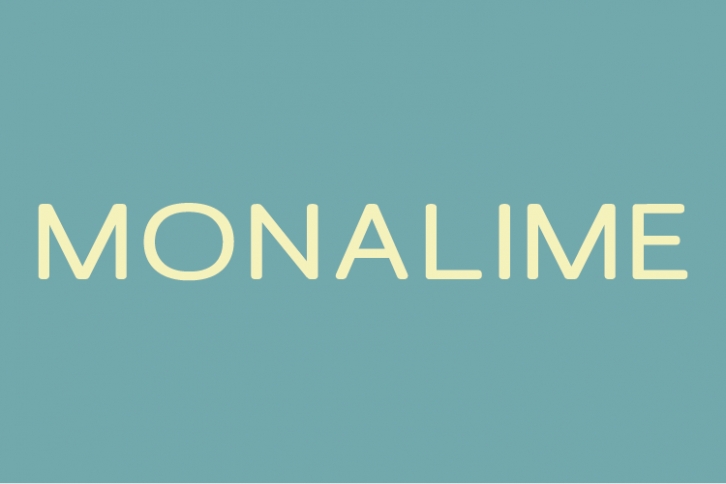
Introducing Monalime, a modern, classy sans serif typeface. A sans serif typeface that contains upper characters, number 0-9 and a range of punctuation and symbols.
An extremely versatile font, perfect for logos, weddings, invitations, quotes, advertisements, print, magazines, and more!